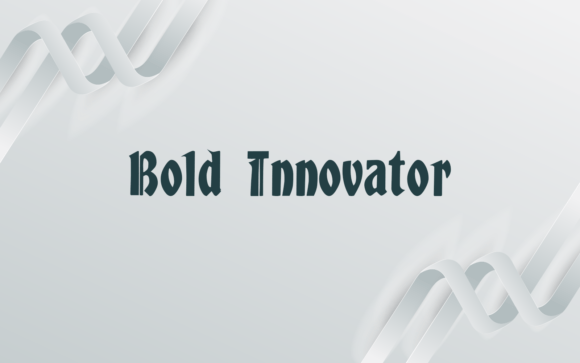
Introducing Bold Innovator Font: The Epitome of Modern Typography
In the realm of typography, fonts play a pivotal role in conveying messages, evoking emotions, and establishing brand identities. Among the myriad of fonts available, the Bold Innovator font stands out for its unique blend of elegance, practicality, and contemporary appeal. Designed to make a statement, this font is characterized by its clean, bold lines, making it an excellent choice for a wide range of applications, from print and digital media to artistic projects.
The Design Philosophy of Bold Innovator
The Bold Innovator font is the result of meticulous design and a deep understanding of typographic principles. Its creators aimed to develop a font that not only captures the essence of modernity but also offers versatility and readability. The clean lines and bold appearance of the font ensure that it stands out in any medium, making it perfect for headlines, titles, and body text alike.
The design philosophy behind Bold Innovator revolves around the balance between form and function. The font’s sleek and contemporary feel is not just aesthetically pleasing but also highly functional, providing a professional and polished look that is essential for businesses, brands, and creatives looking to make an impact.
Key Features of Bold Innovator Font
- Clean and Bold Lines: The font’s clean and bold lines make it highly legible and visually appealing, ensuring that your message is conveyed effectively.
- Contemporary Feel: With its modern design, Bold Innovator brings a fresh and current look to any project, making it perfect for brands and businesses looking to appear cutting-edge.
- Elegance and Practicality: The font strikes a perfect balance between elegance and practicality, making it suitable for a wide range of applications.
- Versatility: Bold Innovator’s versatility is one of its standout features, allowing it to be used effectively in various contexts, from headlines and titles to body text.
Applications of Bold Innovator Font
The Bold Innovator font’s versatility and aesthetic appeal make it suitable for a multitude of applications. Here are some of the key areas where this font excels:
- Print Media: For brochures, posters, magazines, and any other print materials, Bold Innovator offers a professional and eye-catching solution.
- Digital Media: In the digital realm, this font shines in website headers, digital advertisements, social media posts, and more, providing a cohesive and modern look.
- Branding and Identity: For businesses and brands looking to establish or revamp their identity, Bold Innovator offers a clean, contemporary look that can be used in logos, letterheads, and packaging.
- Artistic Projects: Creatives and artists will find Bold Innovator to be an excellent choice for their projects, adding a touch of modernity and sophistication.
Why Choose Bold Innovator Font?
In a world flooded with typography options, Bold Innovator stands out for several reasons:
- Uniqueness: It offers a unique blend of boldness and elegance, making it a standout choice.
- Readability: The font’s design ensures high readability, even at smaller sizes, making it perfect for body text.
- Adaptability: Its ability to adapt to various contexts and mediums makes it a versatile tool in any designerโs arsenal.
- Professionalism: Using Bold Innovator lends a professional and modern look to any project, enhancing its impact.
The Bold Innovator font is a testament to the power of typography in design and communication. Its clean, bold lines, contemporary feel, and versatility make it an invaluable asset for designers, businesses, and creatives. Whether you’re looking to make a statement, establish a brand identity, or simply add a modern touch to your project, Bold Innovator is an excellent choice. With its balance of elegance and practicality, this font is poised to leave a lasting impression in the world of typography.